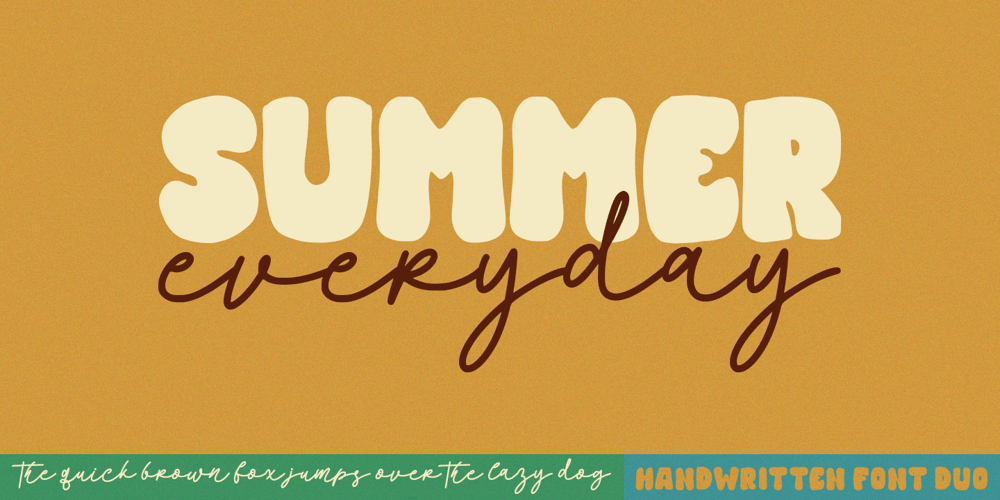
Summer Everyday Font Family was designed by Andri Kurniawan and published by Struggle Studio. Summer Everyday contains 2 styles and family package options. Summer Everyday – is a Duo Font (Monoline and Display), featuring a vintage and soft look. This original look will attract a variety of crafty ideas, from branding and titles to stationery.Note :”Please contact me if you have purchased this font, I will provide free extras and swashes for you.”